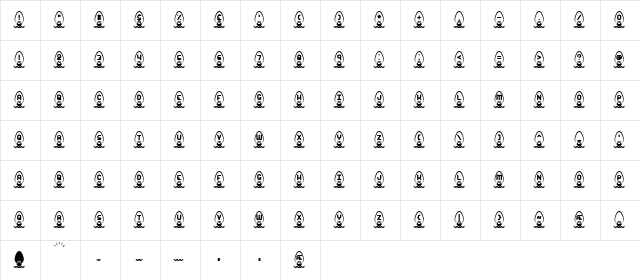
Xmas Lights (BRK) Regular Font Preview
Xmas Lights (BRK) Regular
Design Context for Xmas Lights (BRK) Typeface
Xmas Lights (BRK) is a composed and adaptable typeface that performs quietly and consistently across a wide range of design contexts. The delicate stroke weight brings airiness and refinement to layouts.